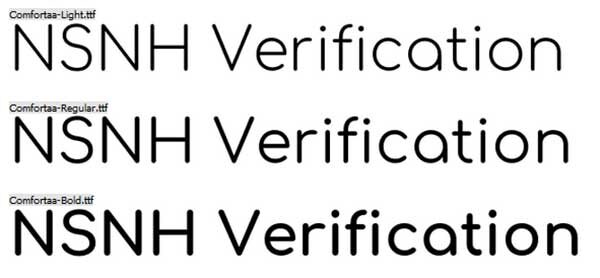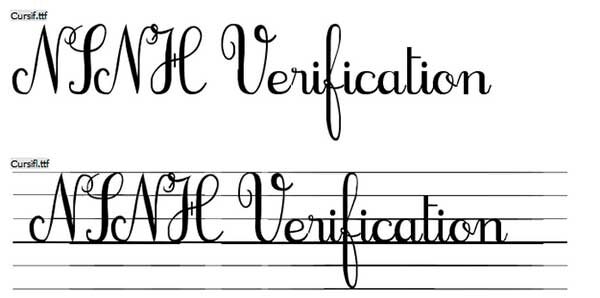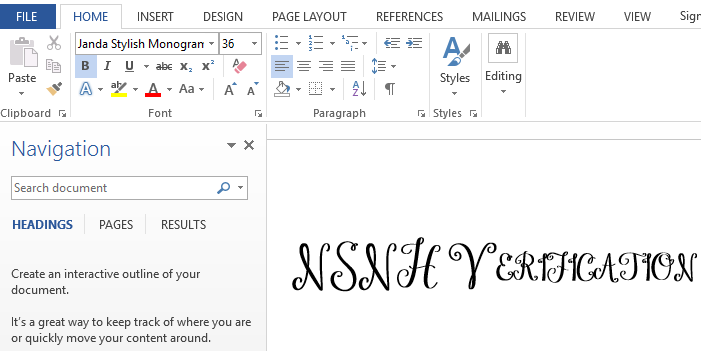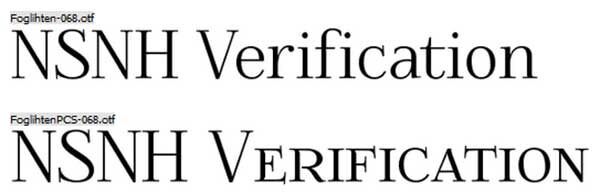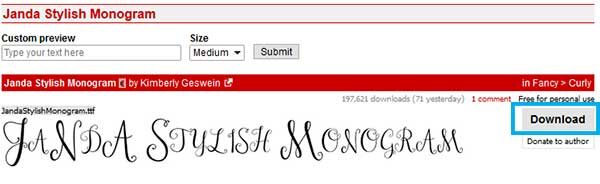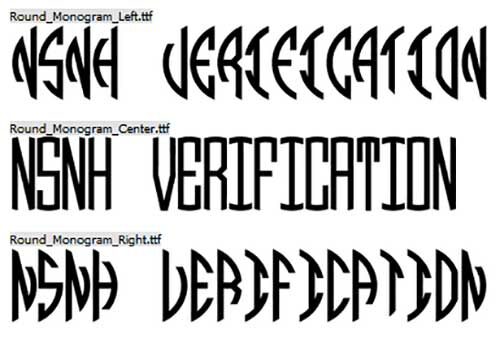
20 Best Free Monogram Fonts to Use in 2025
Free Monogram Fonts
For all the peoples who love decorative letters, they always prefer to monogramming. Monogram is nothing but the significant, attractive characters that are used to personalize different kinds of designs. You will get many varieties of free monogram fonts if you browse on the internet.
Monogram font can be used for printing wedding cards, business cards, letterheads and also for generating company logo. Monogram font always improves the text and makes it look more decorative.
There are different kinds of monogram fonts available from which you can choose like block monograms font, design monograms font, circle monogram font, interlocking monogram font, and much more.
Nowadays the craze for monogram fonts are increased, and peoples are always in search of fresh monogram fonts. All thanks go to the world of the internet that provides us with the different kinds of monogram fonts so that you will never feel a shortage for it.
Here, in this article, we are focusing on the best free monogram fonts that can be used while monogramming, but before we jump to that topic, I would like to give information about monogramming.
What is Monogram or Monogramming?
Monogramming is forming a symbol by overlapping or combining the two or more letters. Generally, Monogram made by merging the initials of the individual’s or company’s name to form the company logos of symbols.
If you want a decorative touch to your initials on letterhead or for creating the company logo or any of the symbols, then monogramming is like a boon for this. Monogramming is a flexible process.
Monogramming is considered as one of the popular methods worldwide. Monogram fonts give an attractive and elegant touch to the letters.
List of 20 Best Free Monogram Fonts to Use While Monogramming
1. Janda Stylish Monogram Font
Janda stylish monogram is the Scripty and interlocking monogram font. These fonts for monogramming utilize lowercase alphabets to create the side initials & uppercase alphabets to make the big center initial.
2. Monogramos
Monogramos is a free circle monogram font that has been created by Woodcutter. You can download this fantastic font for free. You can use this font in various ways and will be best suitable for a circular monogram frame.
3. Monogram Framer
If you are searching for a monogram fonts free for testing the fonts of your computer, then Monogram framer is perfect for you. This font is made for demonstration purpose, and so it has limited Character.
4. Comfortaa
If you are searching for the monogram font for the personal and commercial projects, then Comfortaa is the best curl geometric style of printed letters that will be used in large shapes.
5. Monogram KK
Monogram KK is known as a modern free monogram font because of its stylish cursive outstanding characters. Capital letters can be utilized, and a set of small letters is a minimized variation of its capital letters counterparts.
6. Maxwell
The Maxwell is the best monogram font for creating different kinds of logos, headlines, and monograms. Maxwell is the perfect monogram font for Web, graphics projects, animation projects, and print project as well.
7. Zilap Monogram
This style is similar to other fonts from Zilap studio. If you want to create a fresh logo for products or clients, then Zilap monogram will definitely help you in this. With the help of existing sources, Zilap studio has created this font.